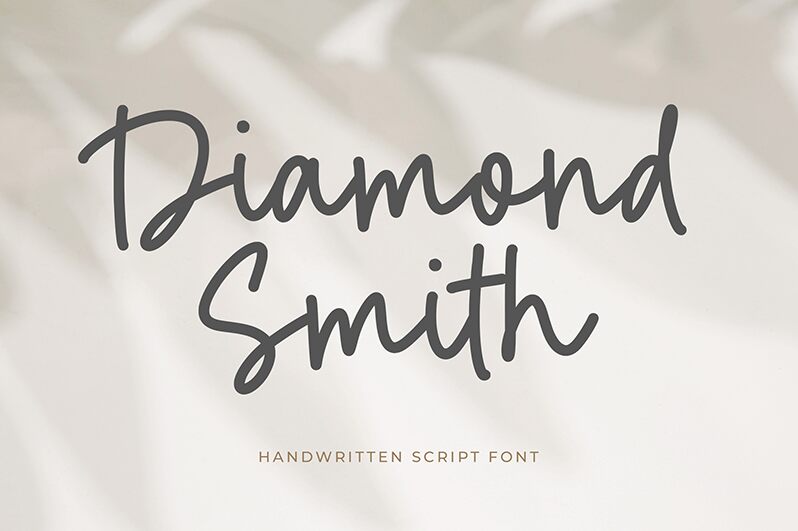
Diamond Smith
Diamond Smith font by Timur Type is a handwritten script that combines casual elegance with a modern feel. Its fluid and dynamic strokes introduce an expressive flair to the display that feels friendly and genuine. The natural flow of Diamond Smith carries a personal touch, and so it can effectively capture both personal and professional audiences with its inspirational design.
This free handwritten font can brand local stores, coffee shops, milkshakes kiosks, or other establishments, wrapping text on signs or businesses cards with elegance. It can also be used for postcards and posters or added to book covers for magical tales or romance novels.